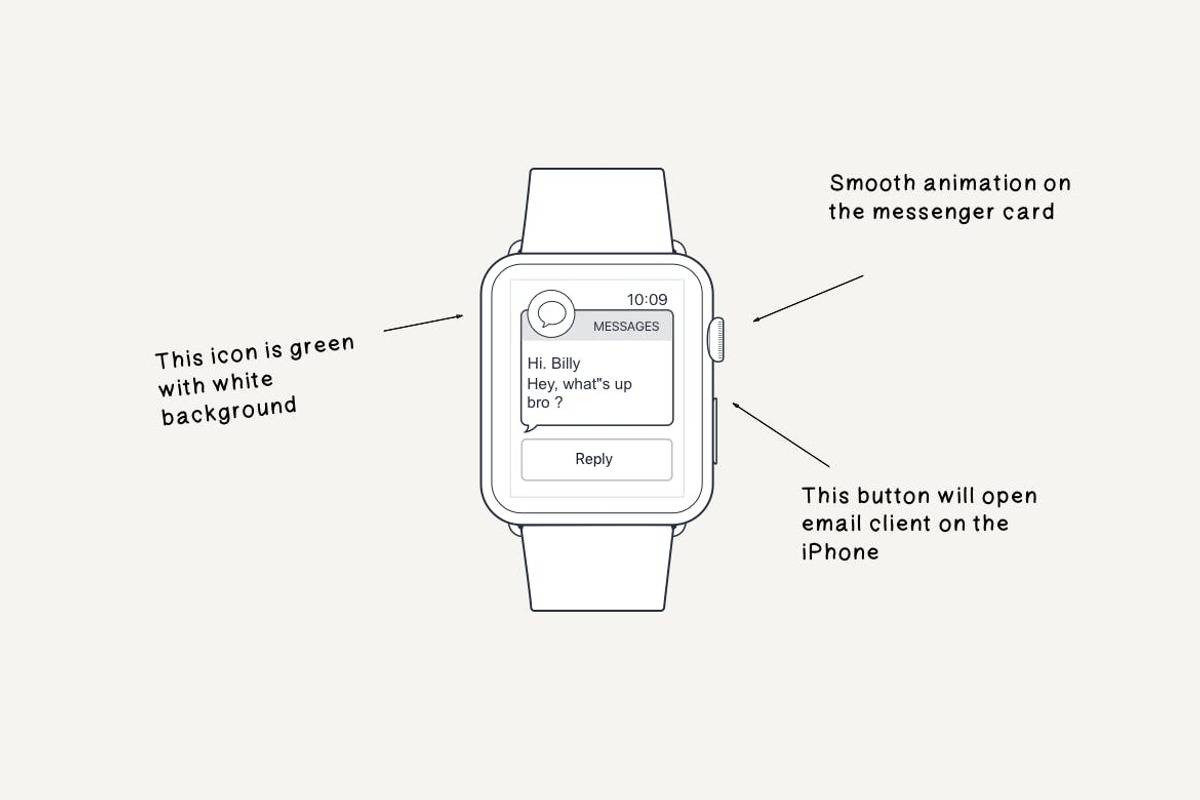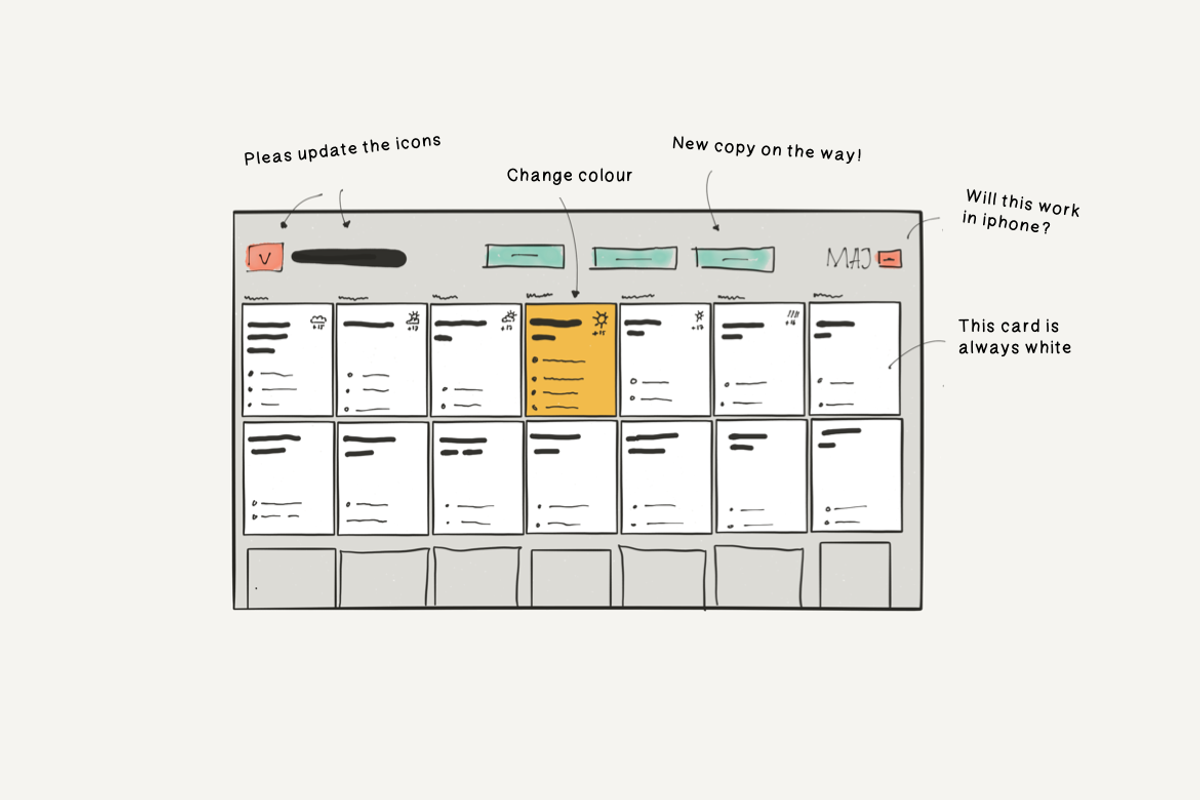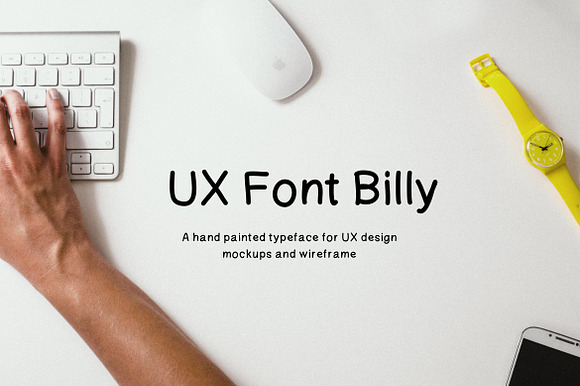
UX Typeface - Billy Handwritten
Billy Handwritten UX Typeface
Billy is a Handwritten Typeface, is a Perfect choice for, ux design, mockups, doodles, comments and more. The pack includes OTF, TTF and Web Fonts (all EOT, TTF, WOFF included).
UX Typeface - Billy Handwritten by Oday Noon fits naturally into Branding, posters, packaging, typography.